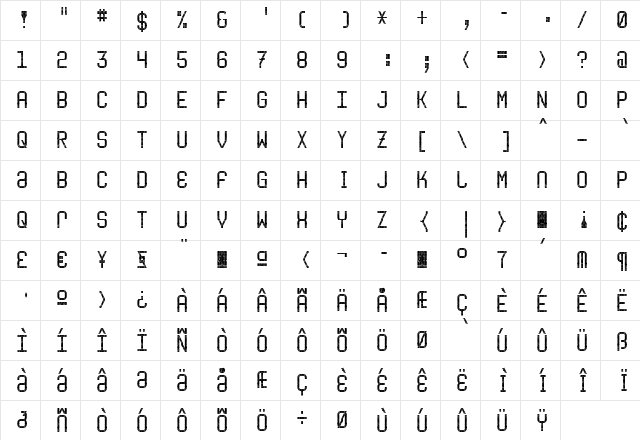
Terminal Regular
Design Context for Terminal Typeface
Terminal offers clean, dependable letterforms without strong stylistic allegiance, making it a practical choice for designers who need flexibility.